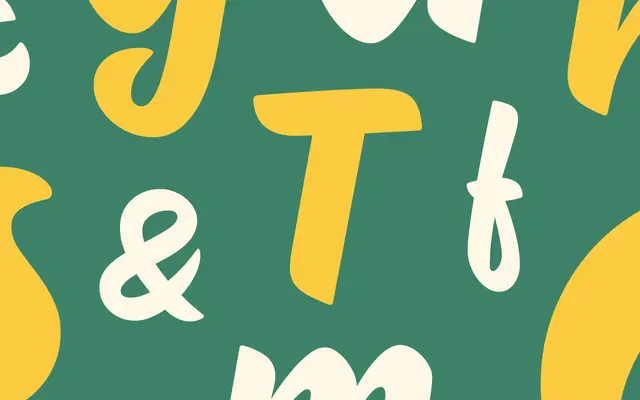
Tareco
Dalton Maag · Deiverson Ribeiro · 2026
Tareco specimen from Dalton Maag
A syncopated brush script by Deiverson Ribeiro inspired by Brazilian biscuit lettering, drawn for packaging, posters and expressive headlines.
A single-weight brush script by Deiverson Ribeiro that takes its rhythm from the lettering on the beloved Brazilian Tareco biscuit. Confident XBold strokes meet precise details and an off-beat baseline that gives the family a jazz-like cadence. Designed for packaging, posters and expressive headlines where you want a loud, playful Brazilian voice rather than a polished anglophone script.
Dalton Maag describe Tareco as a lively, syncopated script inspired by the beloved Brazilian biscuit, with thick confident strokes and precise details that move with a jazz-like rhythm for packaging, posters and expressive headlines.
XBold